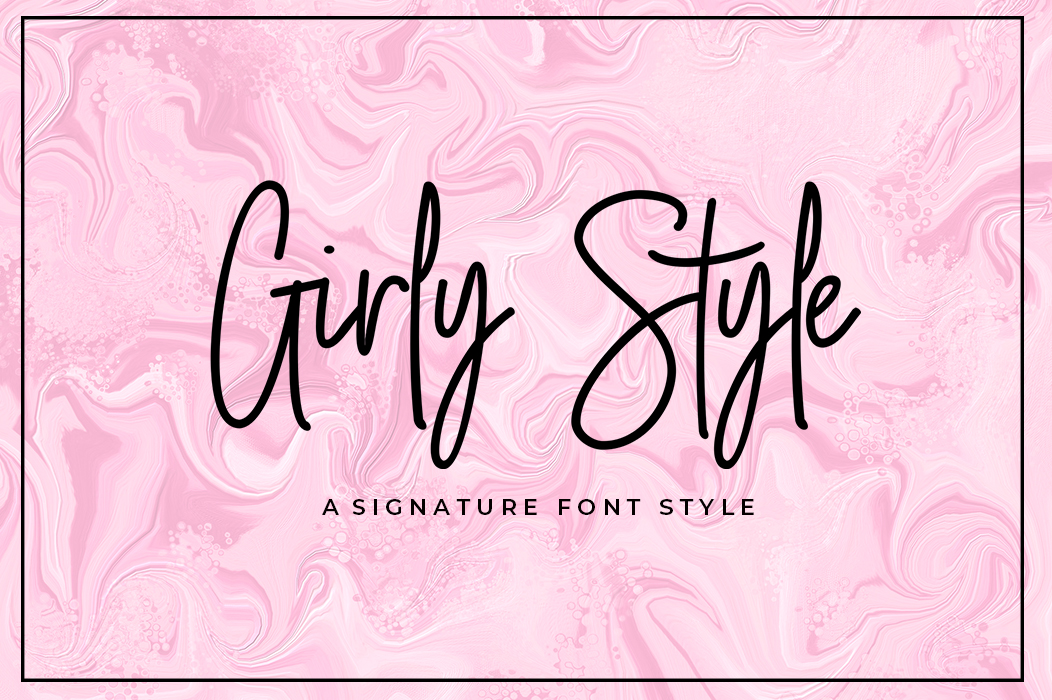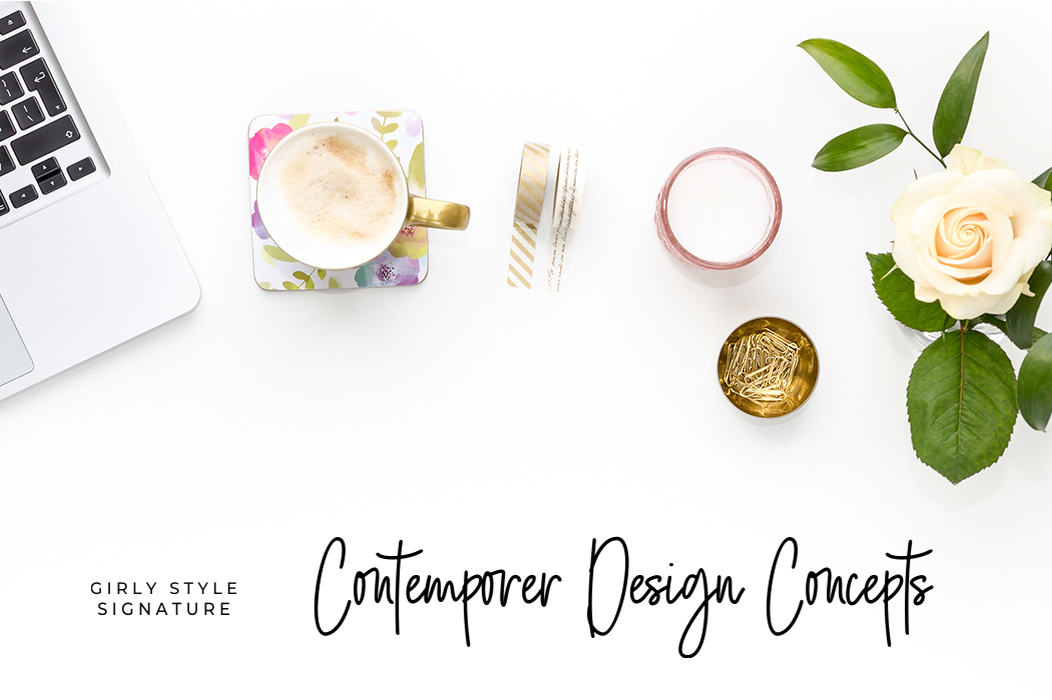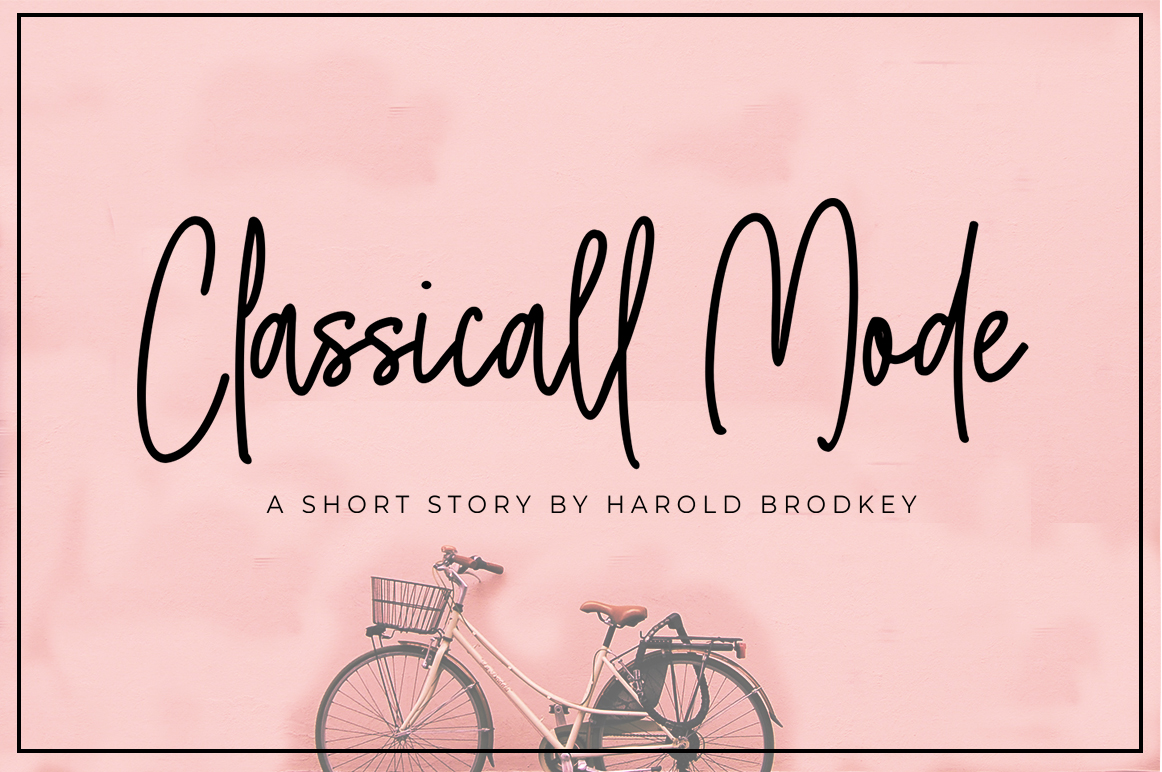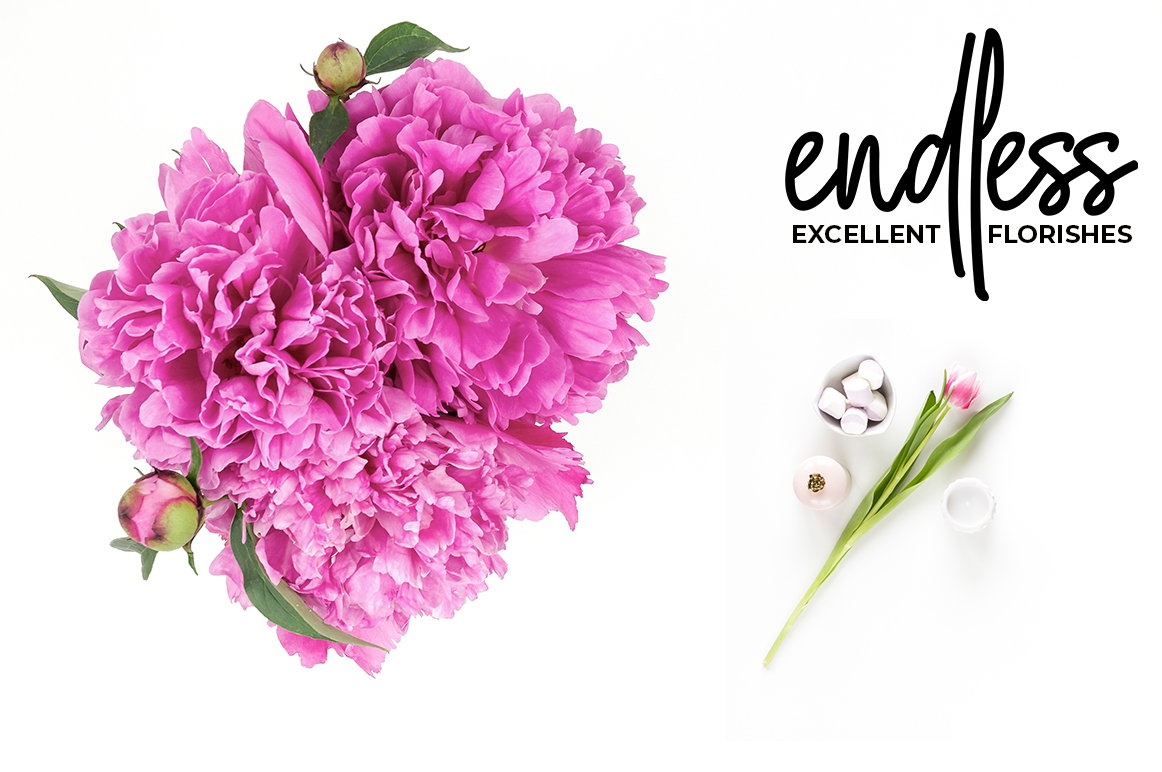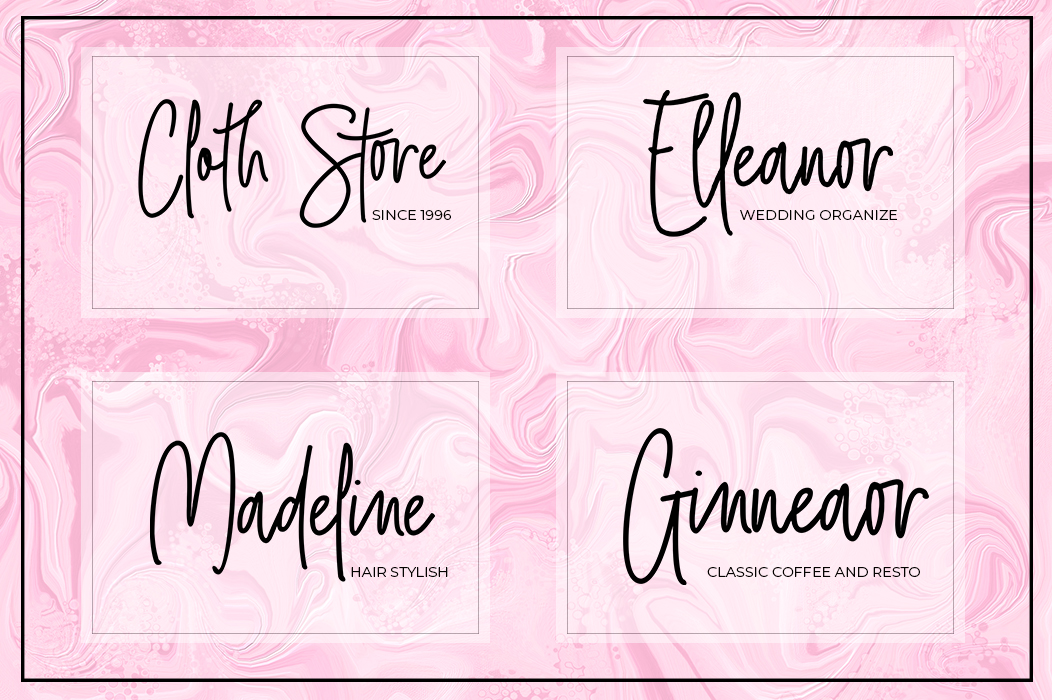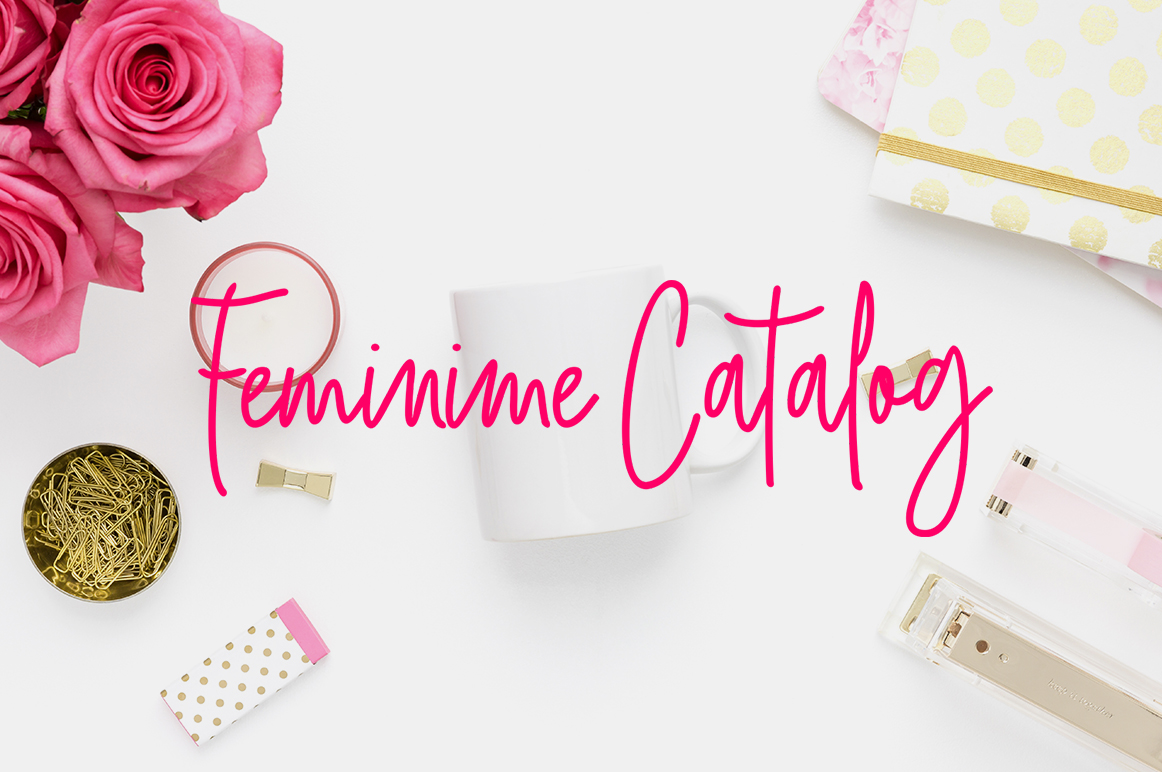
Girly Style Font
About Girly Style Font
Girly Style is a beautiful and simple handwritten font with a fashionable appeal. This contemporary and on-trend font looks great in headlines and is perfect for fashion related content.